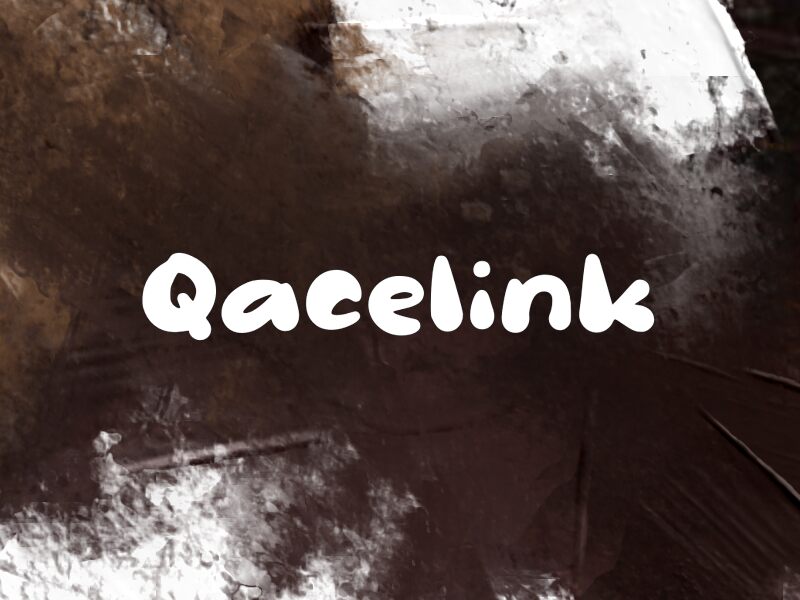
Qacelink font by wep is a free cartoon font with whimsical and modern characteristics. This playful typeface combines a rounded, casual appearance with an approachable and friendly aura that gives it its recognizable style. It maintains an informal atmosphere, while the relaxed tones are further enhanced by a slight variety in the shapes of the characters.
Apply Qacelink to posters, packaging projects, book cover designs, or special types of invitations. Promote a lively and casual tone by using this font in restaurant identity systems, labels, and even websites that feature galleries, magazines, or other publications.
Qacelink is a stylish and modern free font that combines elegance with functionality. Designed to enhance your creative projects, this font is perfect for a variety of applications, from branding and promotions to web design and print materials. With its unique character set and eye-catching style, Qacelink stands out, making your text visually appealing and engaging.